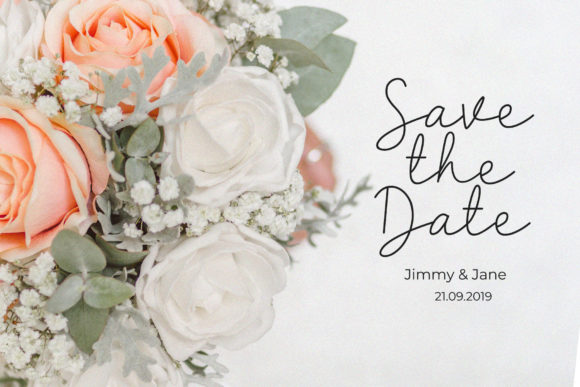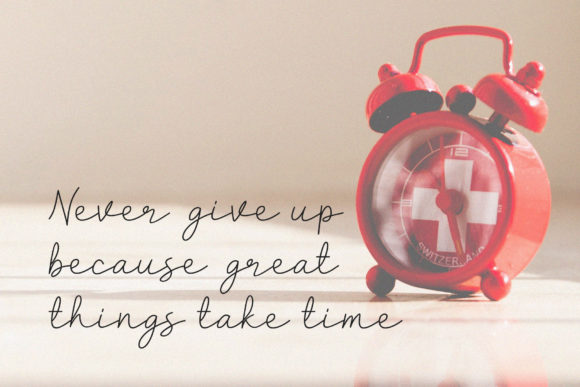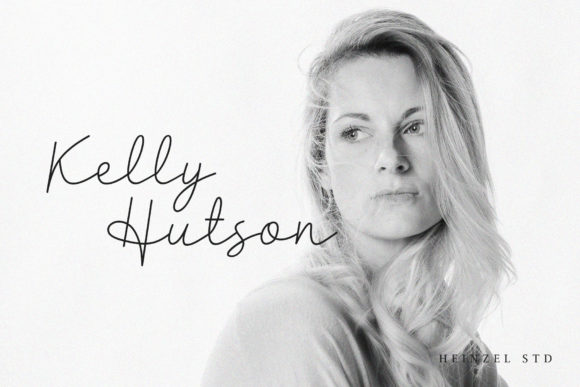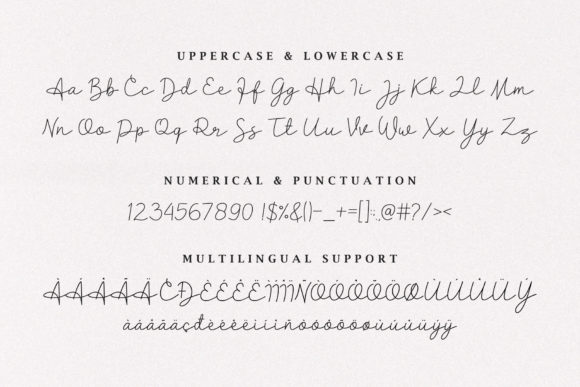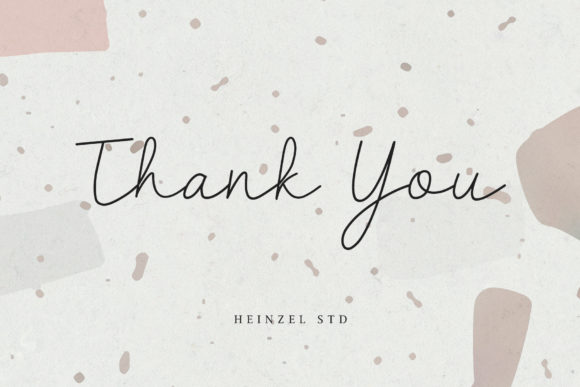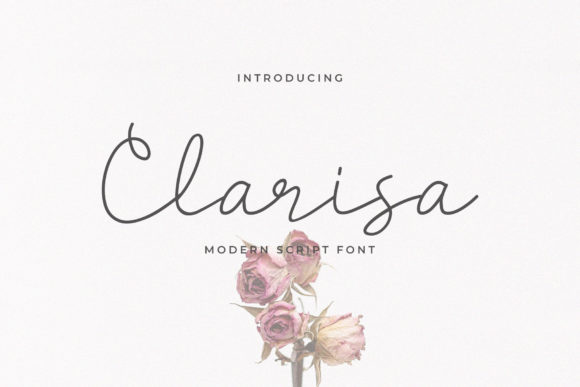
HomePersonal Use FreeClarisa Script Personal Use Free Clarisa Script FacebookTwitterPinterestWhatsApp 1 of 6 About Clarisa Script Font Clarisa is a fun and cool script with a bold feel. Get inspired by its unique charm1 DOWNLOAD NOW People also explored Austrian Farmhouse Font Handmade Signature Font Busllyan Font Khemylau Font Emillisa Font Darling Font Cute Stars Font Vintage Signature Font Move Forward Font 124 0 TagsClarisa Script Font Previous articleCrellia ScriptNext articleHanberra LEAVE A REPLY Cancel reply Comment: Please enter your comment! Name:* Please enter your name here Email:* You have entered an incorrect email address! Please enter your email address here Website: Save my name, email, and website in this browser for the next time I comment. Personal Use Free Multicolore Personal Use Free Read more about this font Wordan Personal Use Free Read more about this font Amellis Path Personal Use Free Read more about this font Euphorigenic Personal Use Free Read more about this font BLOG Where to Buy American Fonts Online in 2024 Where to Buy American Fonts Online: The Ultimate Guide for 2024 Looking for the perfect American font to elevate your design projects? You're in the... Elegant Wedding Invitation Fonts – Handwritten & Script Fonts To increase your work productivity, choose the most readable fonts. Using Fonts in Digital Marketing: Tips to Strengthen Your Brand Identity